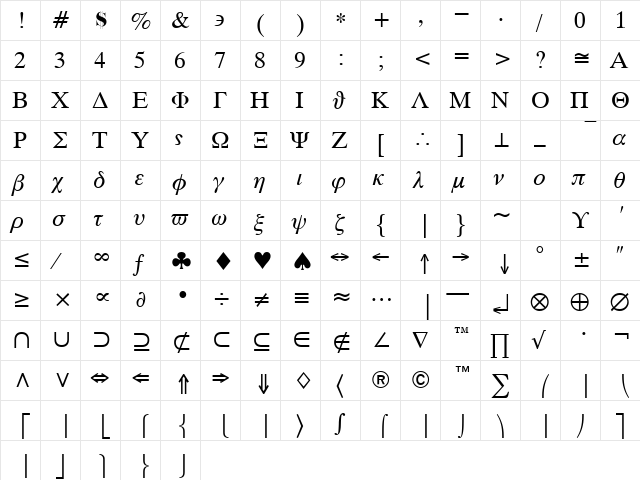
Symbols 7 Normal Font Preview
Symbols 7 Normal
Design Context for Symbols 7 Typeface
Symbols 7 takes a measured approach to typography — its balanced proportions and neutral character make it a reliable workhorse for both digital and print work.
Pro Tip: Use Symbols 7 in both headline and body roles to test its range before committing to a single application.